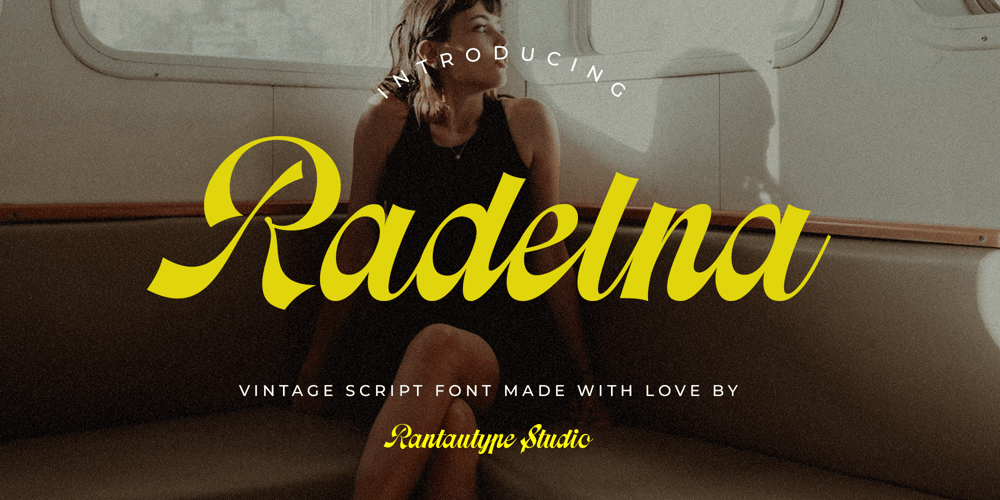
Radelna
Radelna font
Radelna Font Family was designed by Yudi Pratama Chandra and published by RantauType. Radelna contains 1 styles and family package options. Radelna is classic script font inspire by vintage visual design. Radelna is a beautiful choice for any creative endeavor, creating, modern, chic, lifestyle design such as logotype, title, cover, branding, invitations, wedding designs, display and magazine, social media posts, advertisements, printed quotes, product packaging, corporate brand, product designs, labels, photography, watermarks, special events and any other project with vintage touch.What you have: Standart Glyphs Numberial and Functional Ligature and alternate Works on PC & Mac Simple installations Accessible in Adobe Illustrator, Adobe Photoshop, Adobe InDesign, even work on Microsoft Word. Fonts include multilingual support for: Afrikaans, Albanian, Basque, Bemba, Bena, Breton, Catalan, Chiga, Cornish, Danish, Dutch, English, Estonian, Filipino, Finnish, French, Galician, German, Icelandic, Indonesian, Irish, Italian, Kinyarwanda, Luxembourgish, North, Norwegian, Portuguese, Romansh, Rombo, Rundi, Scottish, Gaelic, Sena, Shambala, Shona, Soga, Somali, Spanish, Swahili, Swedish, Swiss, German.Thank you for your purchase!Hope you enjoy with our font!